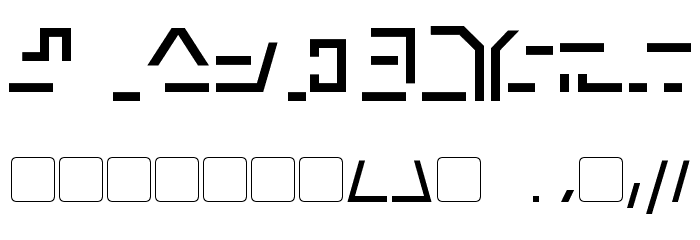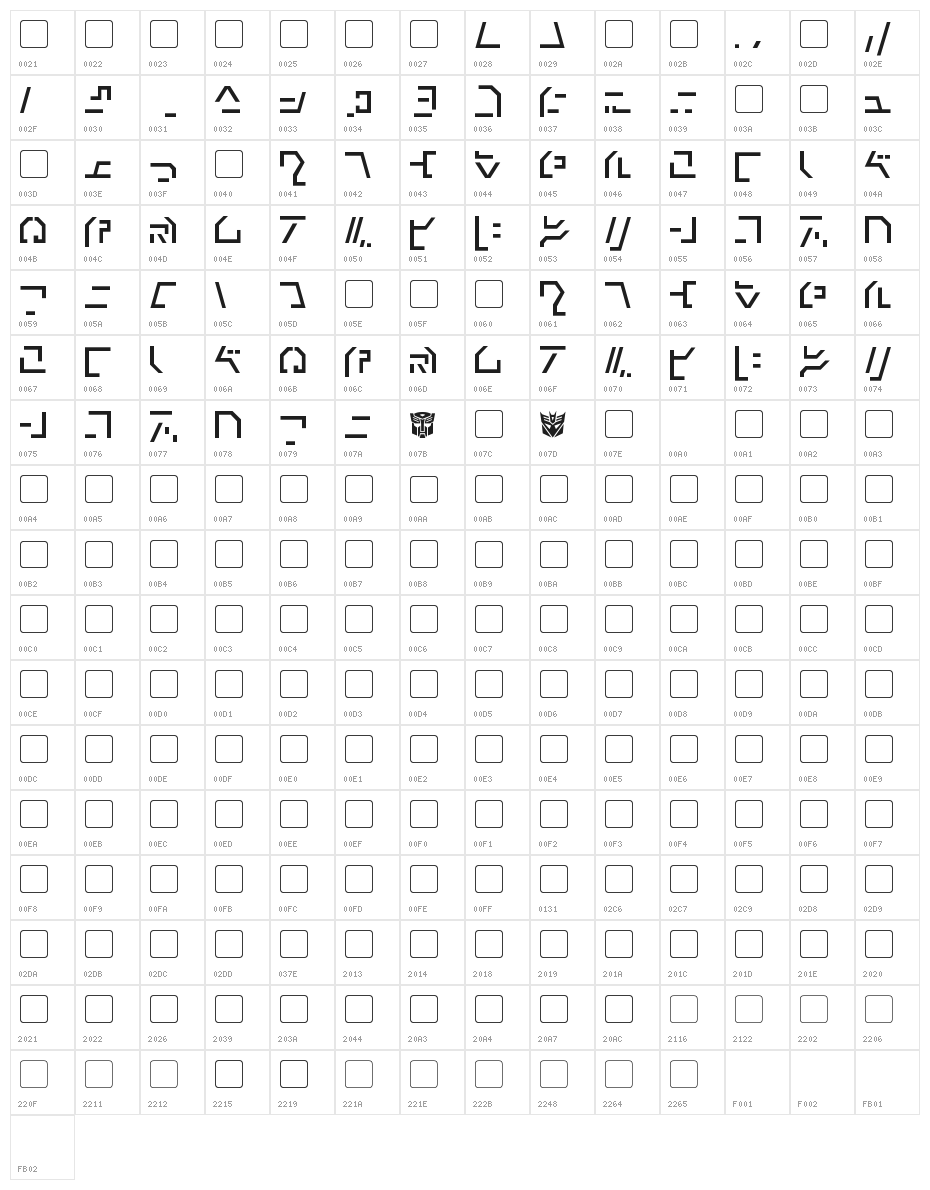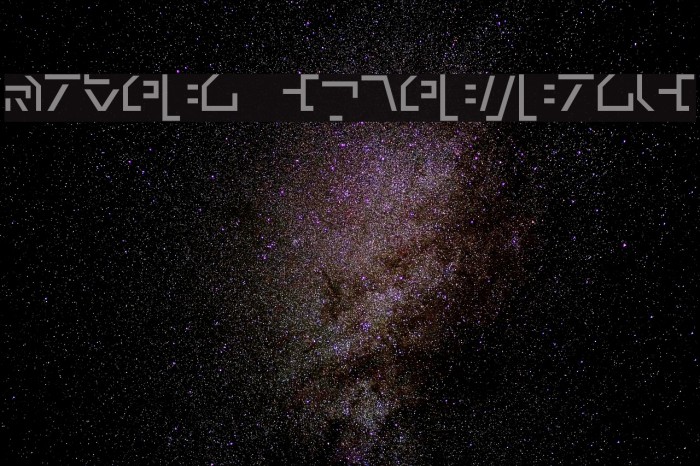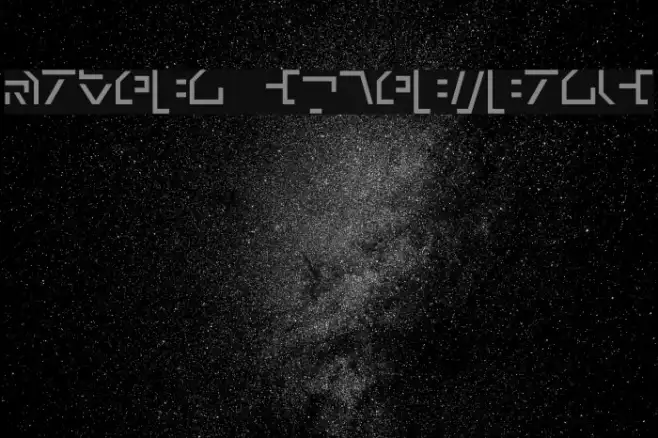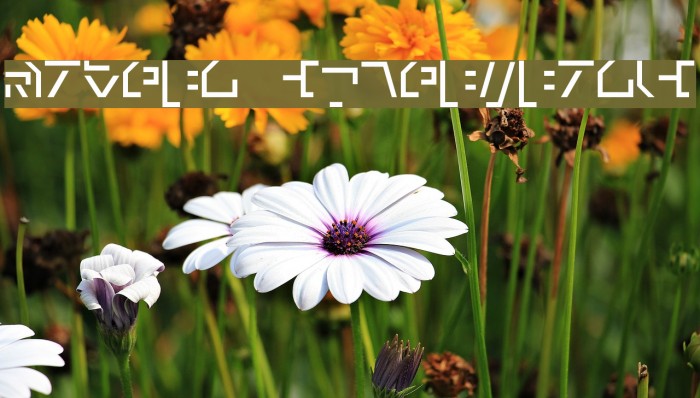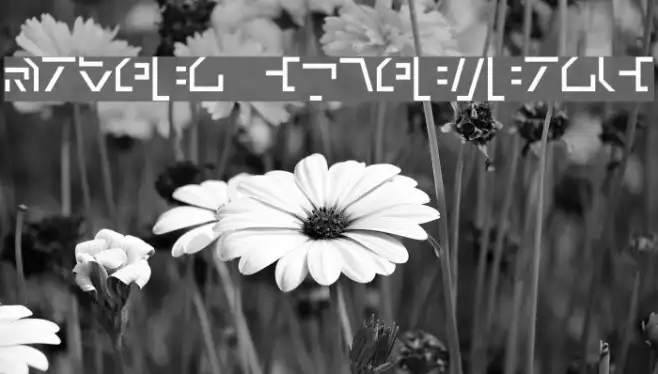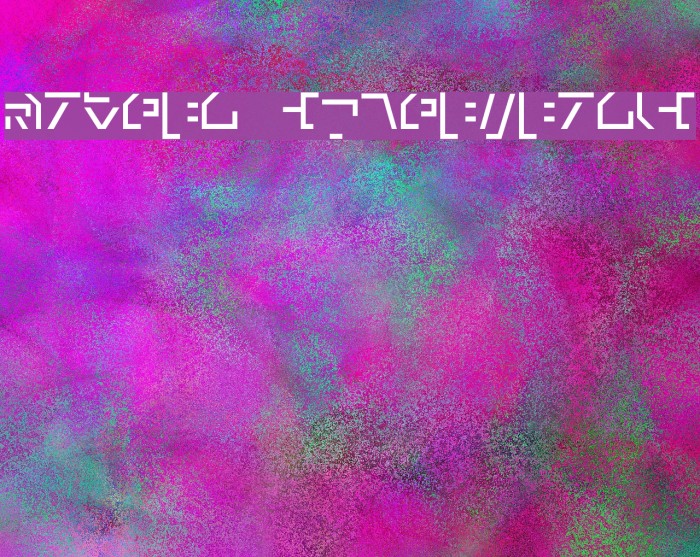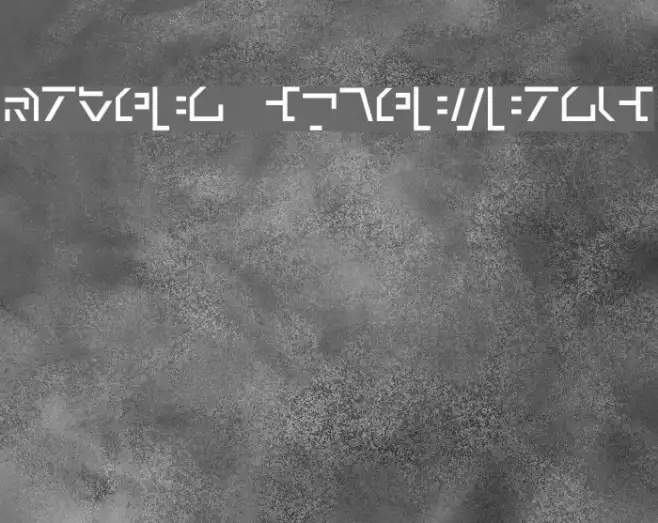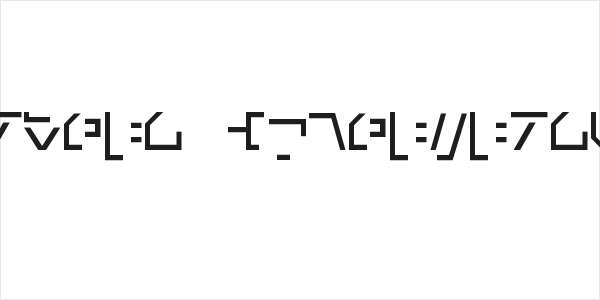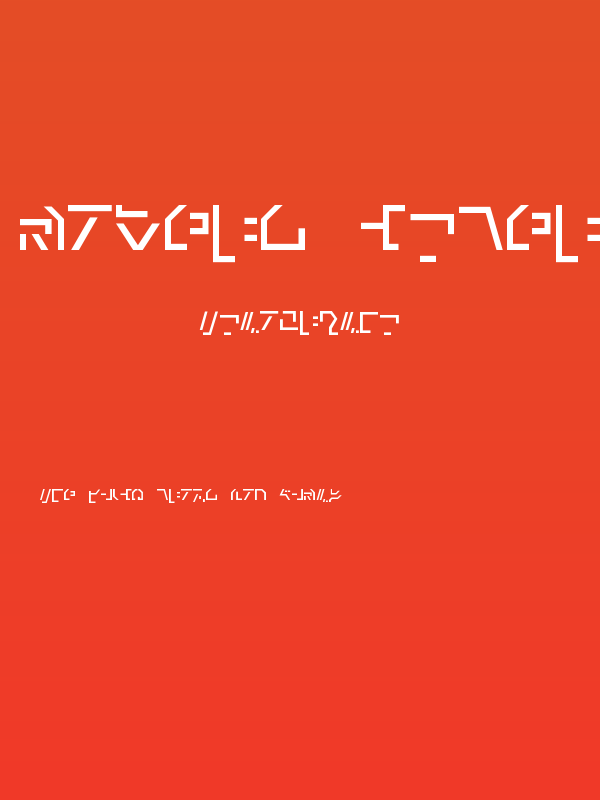
Modern Cybertronic Font
Modern Cybertronic Description
This font features a futuristic, cyber-inspired design with angular, geometric shapes that evoke a sense of technology and innovation. The characters are composed of straight lines and sharp angles, giving it a digital, robotic feel. The style is reminiscent of sci-fi themes, making it ideal for projects that require a modern and tech-savvy appearance. The font's unique structure is both eye-catching and distinctive, ensuring it stands out in any design. It lacks traditional curves, opting instead for a more mechanical aesthetic.
| Proposed Projects | Ideal for tech-related branding, sci-fi movie posters, video game titles, and futuristic-themed websites. |